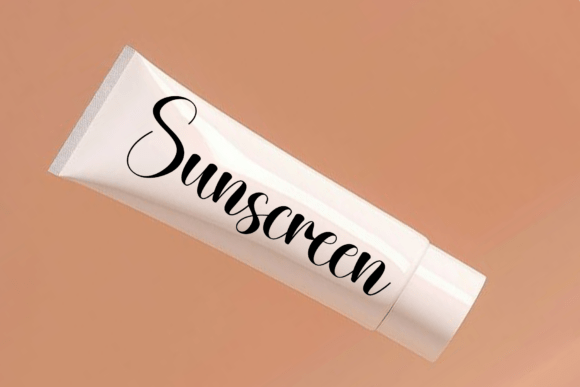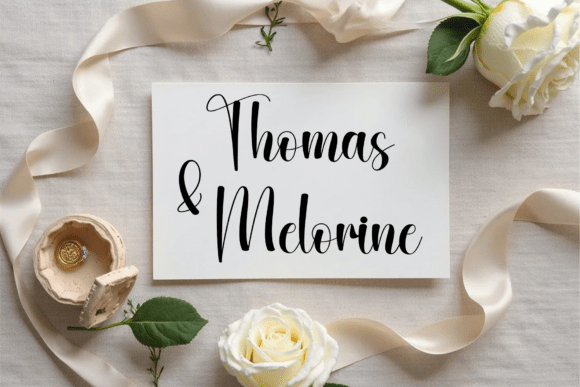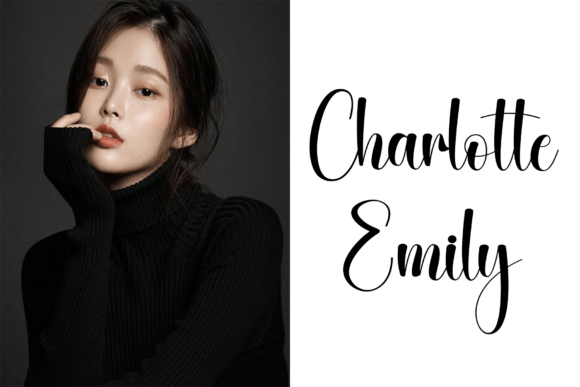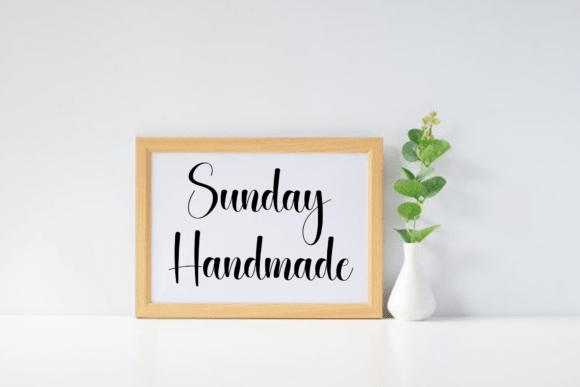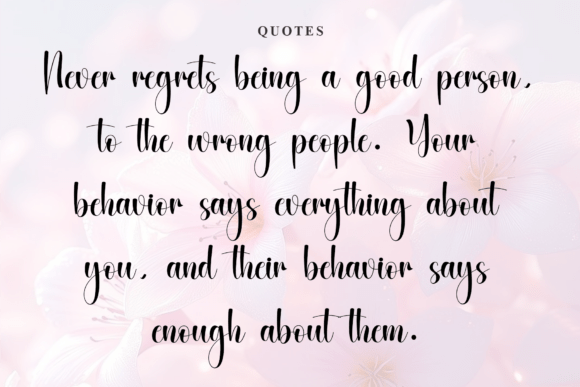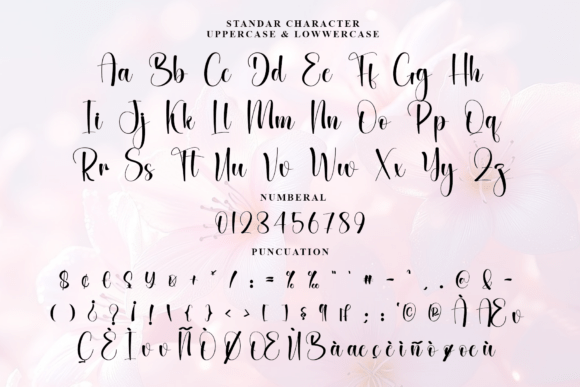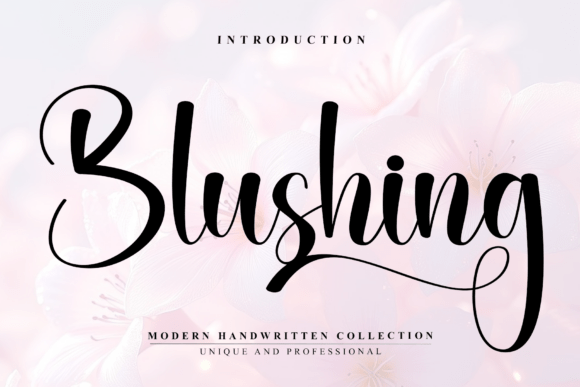
Introducing Blushing Font: Elevate Your Designs with Artistic Flair and Contemporary Elegance
In the world of typography, few fonts manage to capture the essence of hand-painted calligraphy while exuding a modern and sophisticated vibe. Blushing Font is one such marvel that has been turning heads with its fluid brush strokes, dynamic curves, and expressive letterforms. This stylish script font is a perfect blend of artistic flair and contemporary elegance, making it an ideal choice for designers and crafters looking to add a creative and sophisticated touch to their work.
The Artistic Appeal of Blushing Font
Blushing Font is more than just a collection of letters; it’s an artistic statement. Its fluid brush strokes give each character a unique, hand-painted feel that is reminiscent of traditional calligraphy. However, unlike traditional calligraphy, Blushing Font boasts a modern twist that sets it apart from more conventional script fonts. This modernity is evident in its dynamic curves and expressive letterforms, which not only add to its aesthetic appeal but also enhance its readability.
One of the standout features of Blushing Font is its versatility. Whether you’re designing a logo, crafting an invitation, creating packaging, or developing social media graphics, this font can do it all. Its natural flow and vibrant character make it perfect for a wide range of design projects, allowing you to deliver both visual impact and sophistication. The font’s ability to convey elegance and creativity simultaneously makes it a valuable asset for any designer or crafter looking to elevate their work.
Applications of Blushing Font
Blushing Font’s applications are vast and varied. Here are a few ways you can use this beautiful font to enhance your designs:
- Logos: Create a memorable brand logo that stands out with its unique and artistic appeal.
- Invitations: Add a touch of elegance and sophistication to your invitations, making them perfect for weddings, parties, and other special events.
- Packaging: Elevate your product packaging with a font that exudes quality and style.
- Social Media Graphics: Make your social media posts and stories stand out with a font that is both creative and eye-catching.
Why Choose Blushing Font?
With so many fonts available, why should you choose Blushing Font for your design projects? Here are a few compelling reasons:
- Unique Artistic Appeal: Its fluid brush strokes and dynamic curves offer a fresh alternative to more traditional fonts.
- Versatility: Suitable for a wide range of design projects, from logos and invitations to packaging and social media graphics.
- Ease of Use: Despite its sophisticated look, Blushing Font is easy to use and integrates seamlessly into various design tools.
- Contemporary Elegance: It brings a modern touch to your designs without compromising on elegance or sophistication.
Blushing Font is a stylish script font that offers the perfect blend of artistic flair and contemporary elegance. Its fluid brush strokes, dynamic curves, and expressive letterforms make it an excellent choice for designers and crafters looking to add a creative and sophisticated touch to their work. With its versatility, ease of use, and unique artistic appeal, Blushing Font is set to become a staple in the world of typography. Whether you’re working on a logo, invitation, packaging, or social media graphics, this font is sure to deliver both visual impact and sophistication.